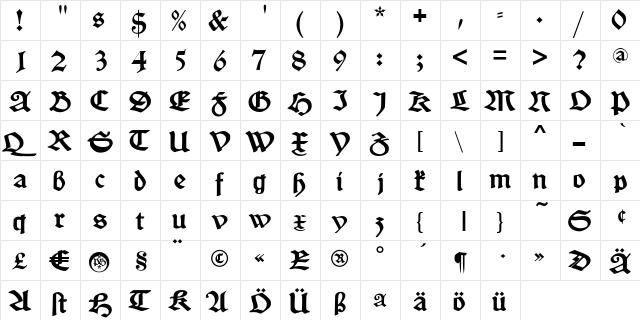
SchneidlerSchwabacher Regular
Design Context for SchneidlerSchwabacher Typeface
SchneidlerSchwabacher is a composed and adaptable typeface that performs quietly and consistently across a wide range of design contexts.